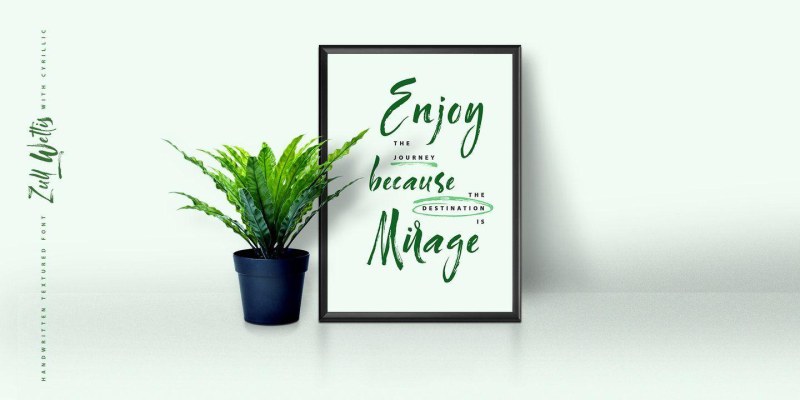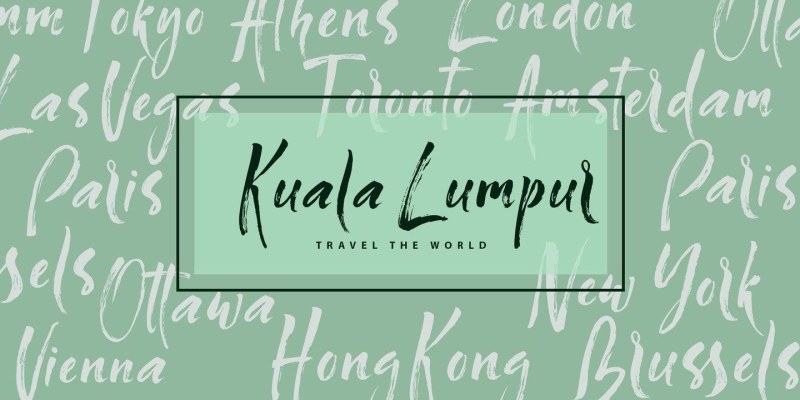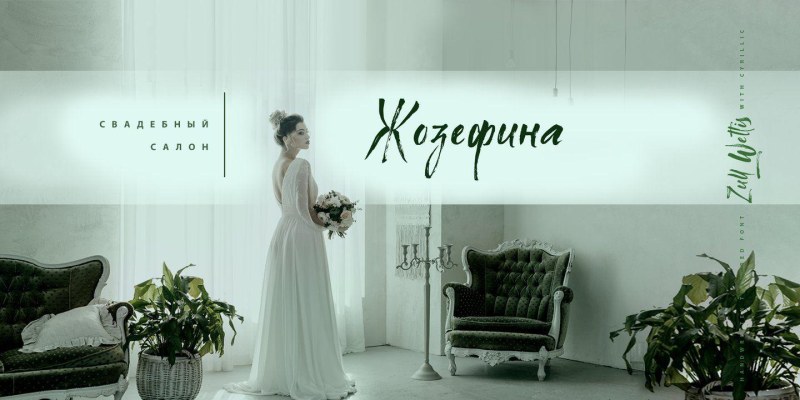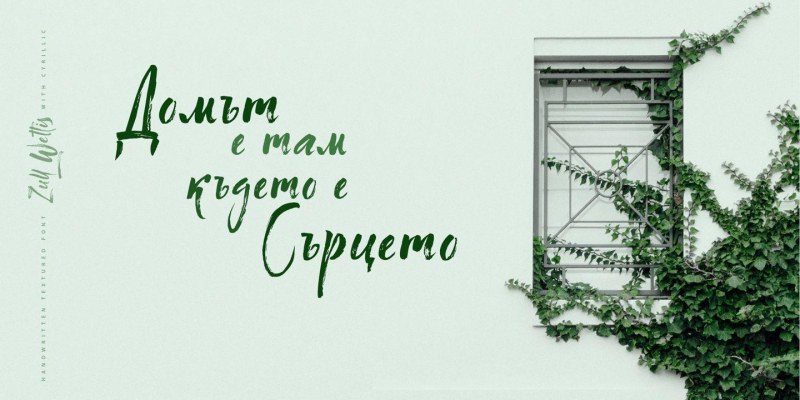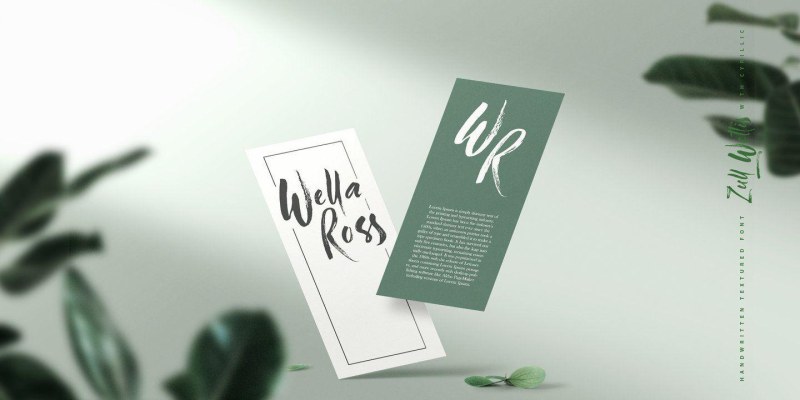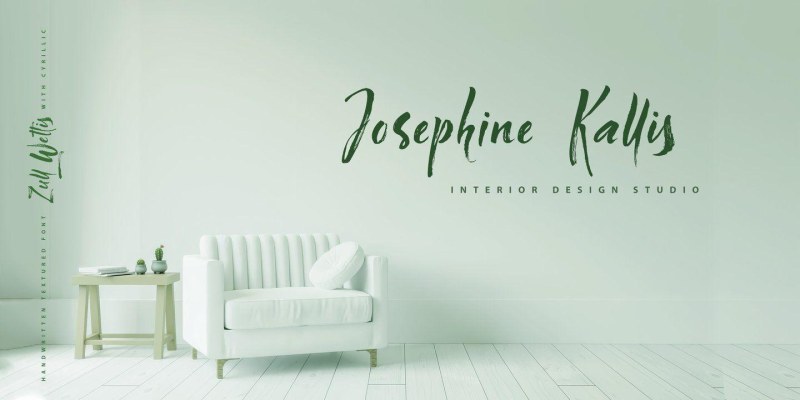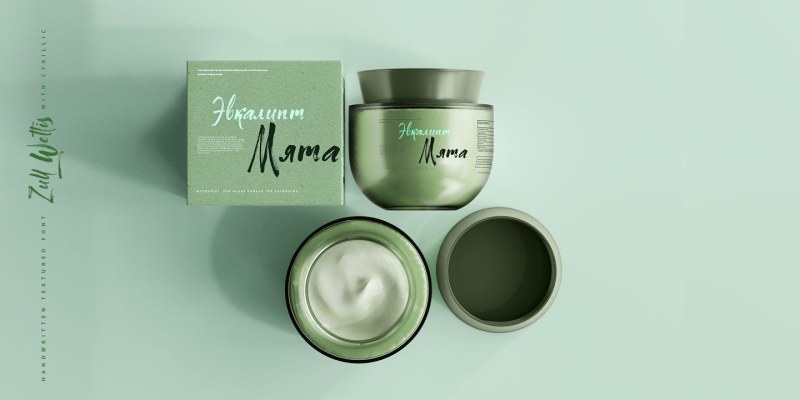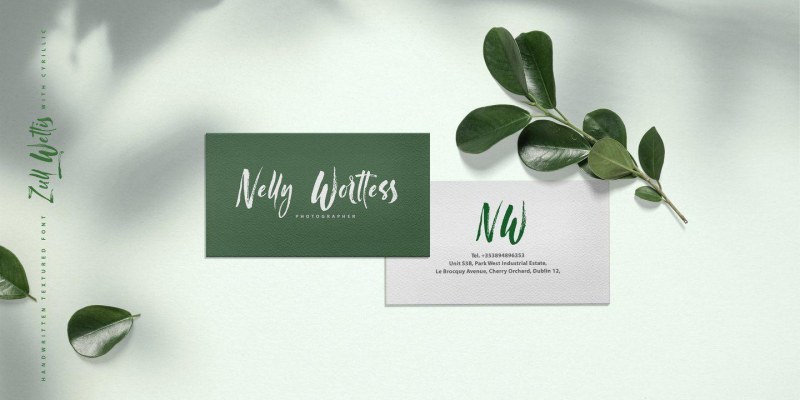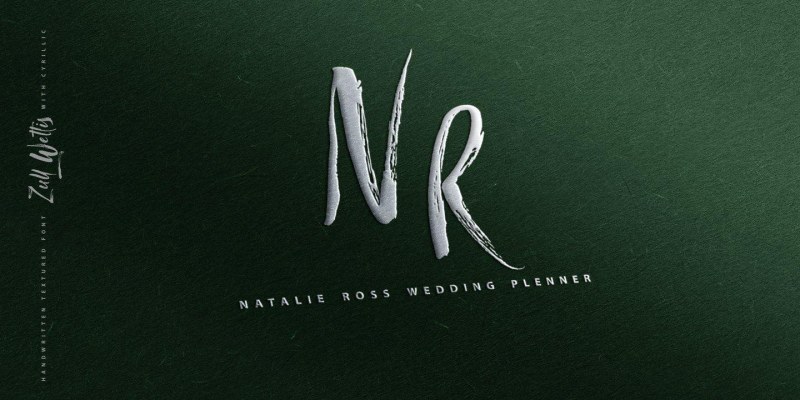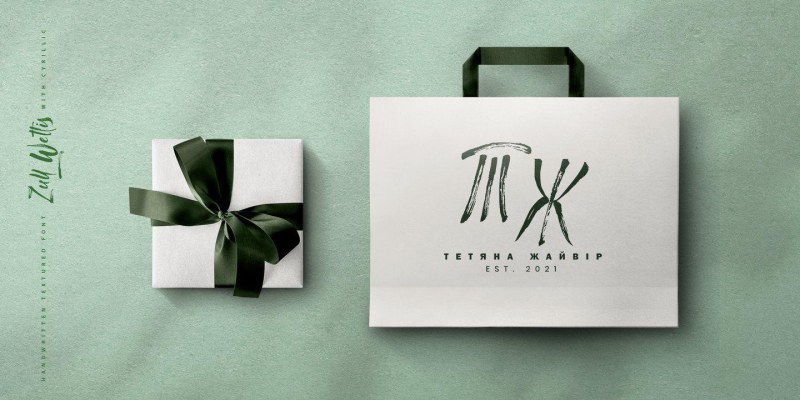
Zull Wettis Cyrillic Font Family
The script font Zull Wettis was handwritten with a dry brush and will look great on branding design, posters, apparel, logotype, website header, fashion design, wedding card design, and more. Zull Wettis script font contains a full set of uppercase and lowercase letters and 23 ligatures – which can be used to create a handwritten calligraphy look. The Cyrillic part of the font contains the uppercase letters and lowercase letters and 18 ligatures, giving a realistic hand-lettered style.
Zull Wettis Symbols is a font with over 36 unique, hand-drawn elements and swashes that can help to make your design more original. A different symbol is assigned to every uppercase or lowercase standard character plus numbers 0-9 so you do not need graphics software just simply type the letter you need.
Multilingual Support for 32 languages: Latin glyphs for Afrikaans, Albanian, Basque, Bosnian, Catalan, Danish, Dutch, English, Estonian, Faroese, Filipino, Finnish, French, Galician, Indonesian, Irish, Italian, Malay, Norwegian Bokmål, Portuguese, Slovenian, Spanish, Swahili, Swedish, Turkish, Welsh, Zulu.
And Cyrillic glyphs support Russian, Belorussian, Bulgarian, Ukrainian, and Kazakh languages.